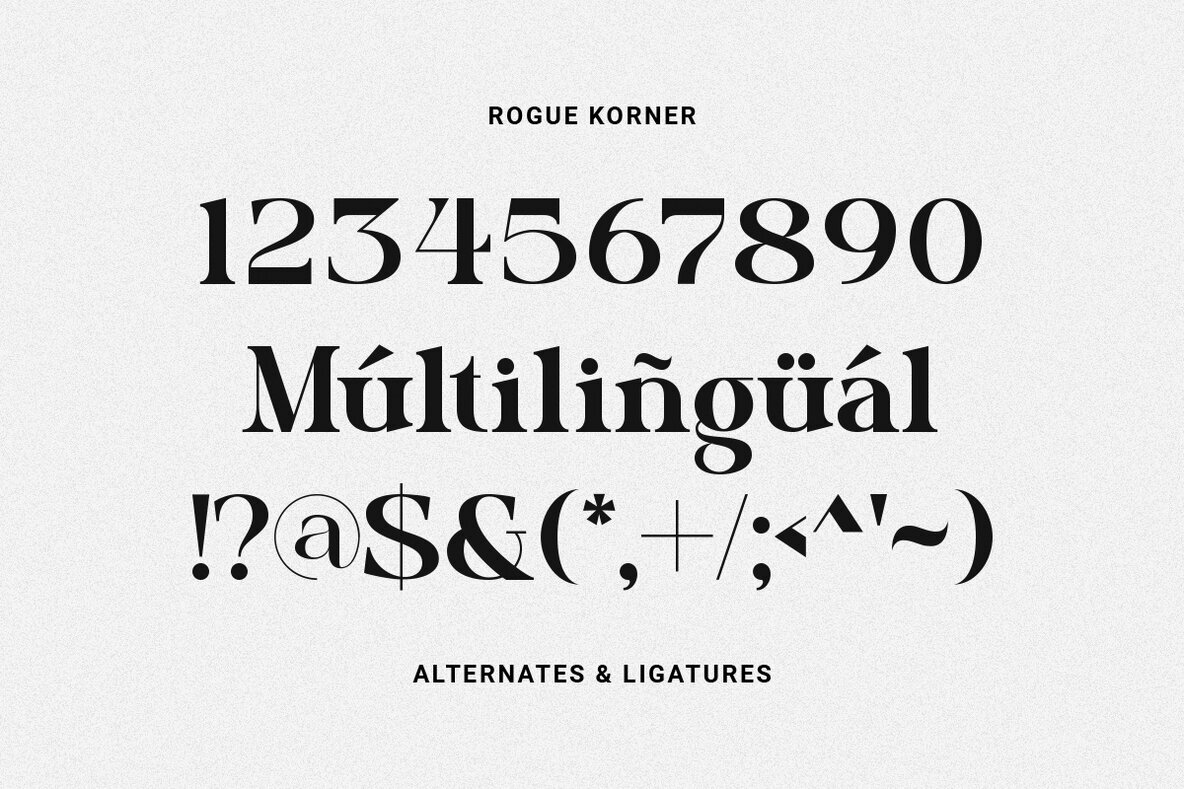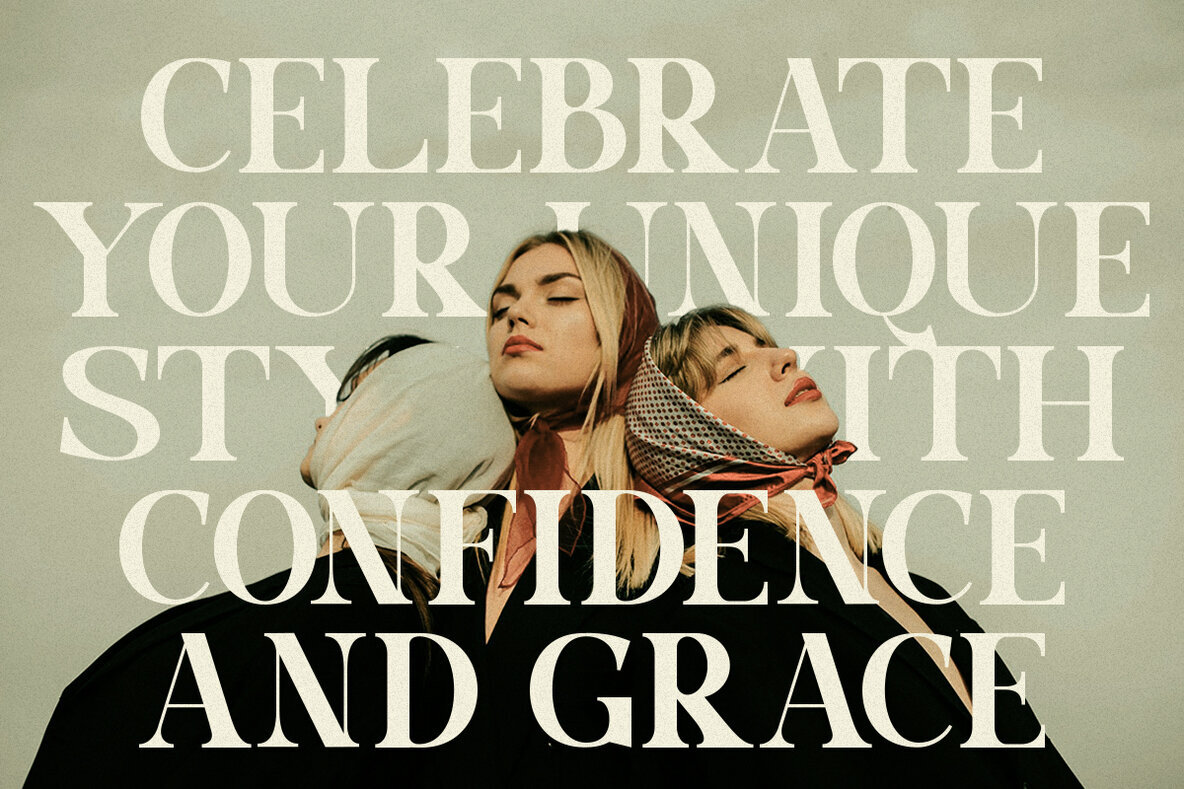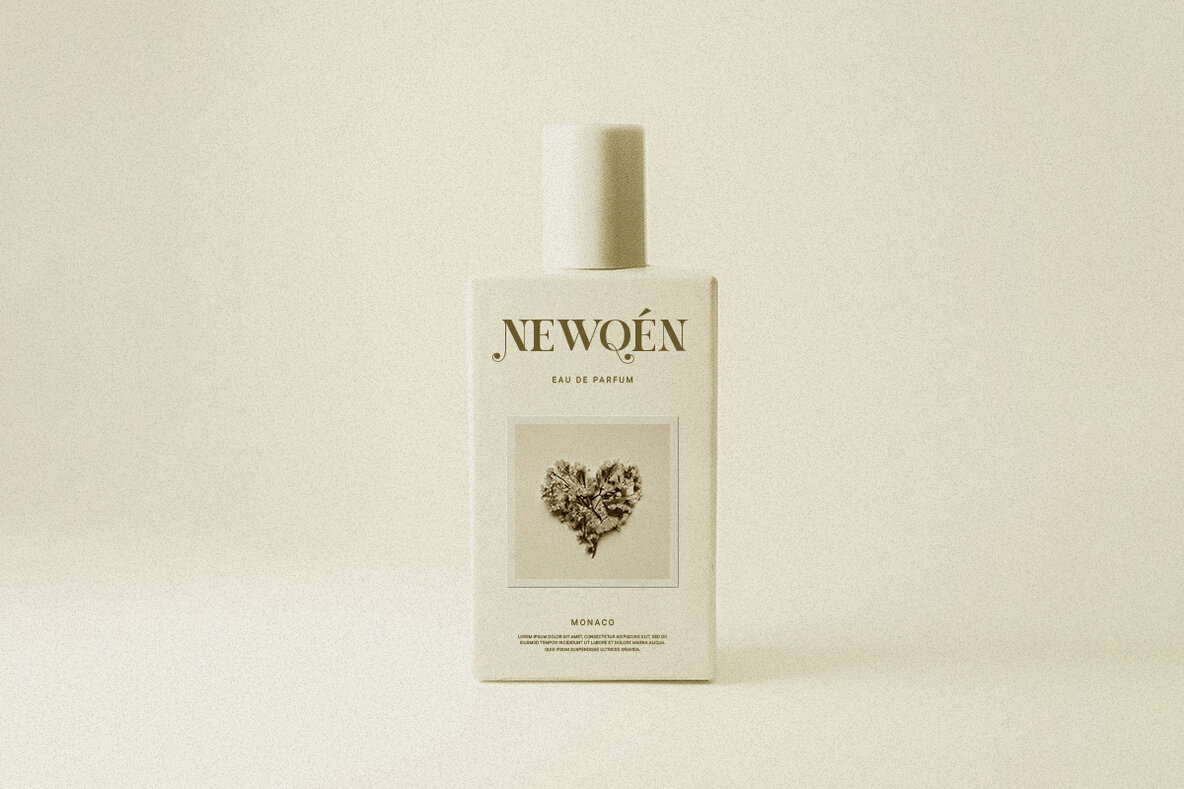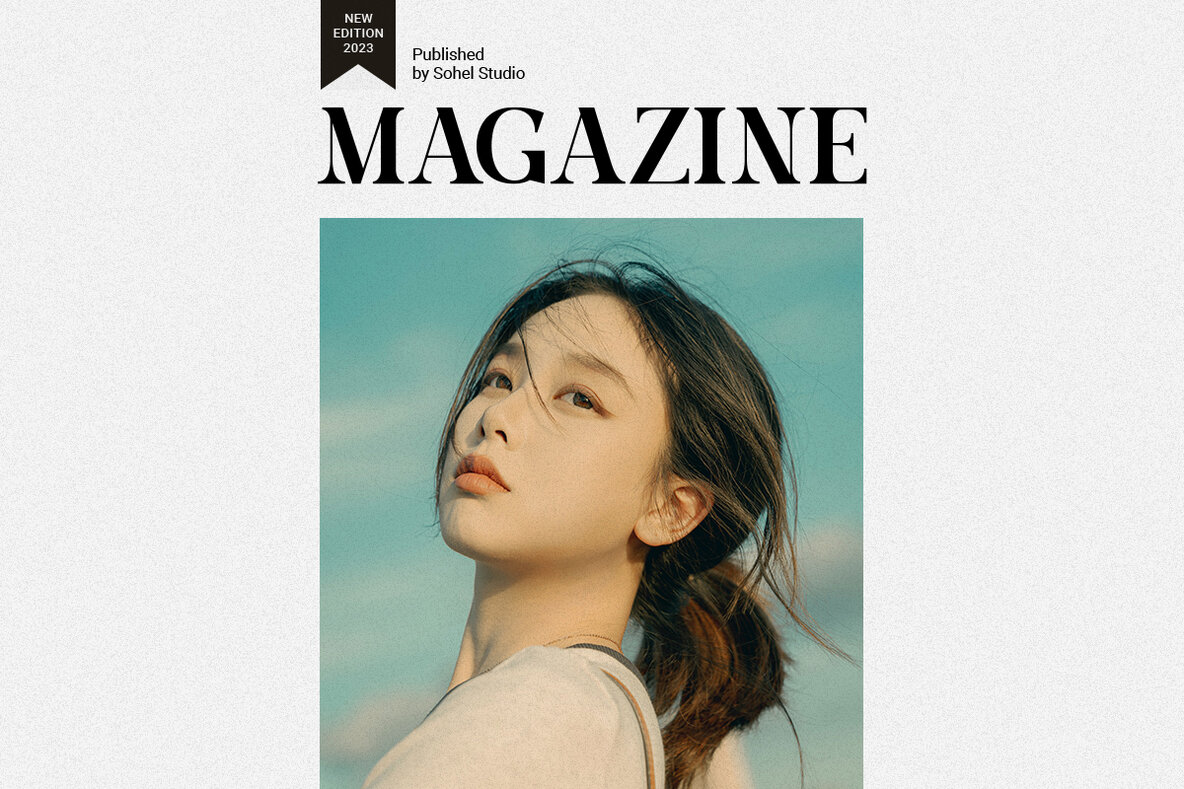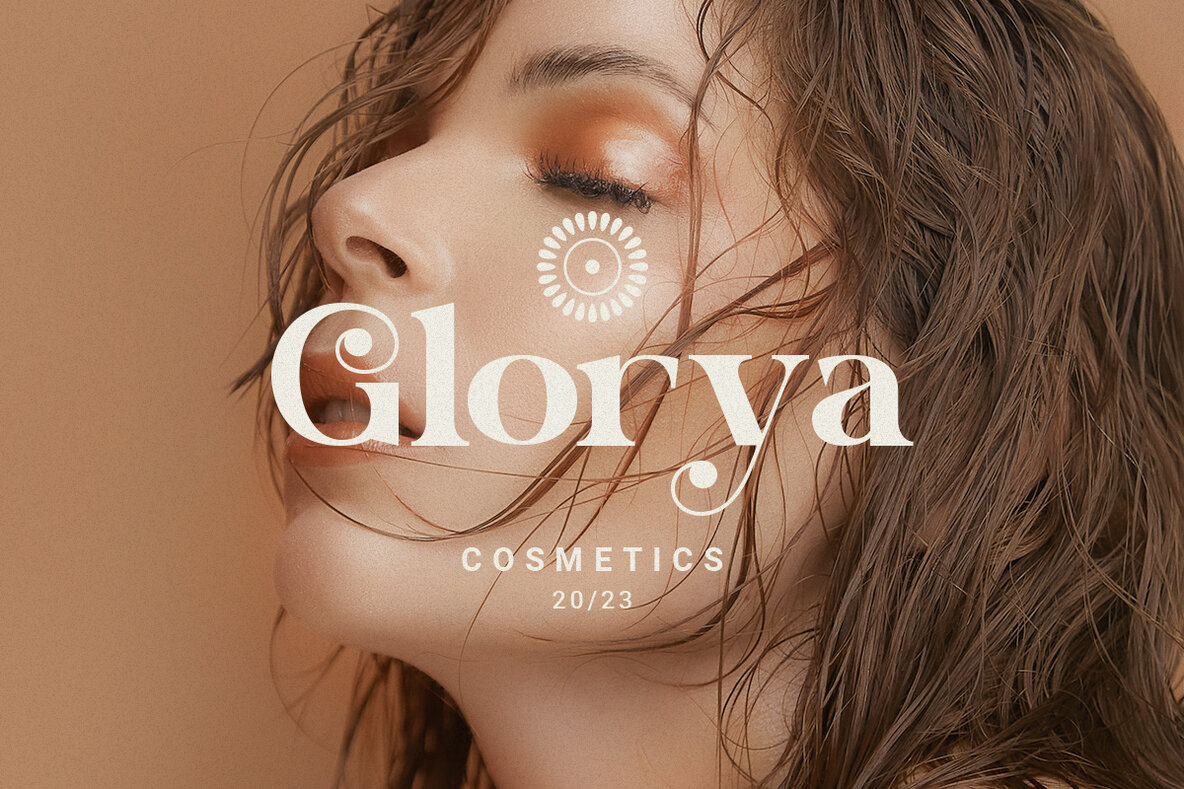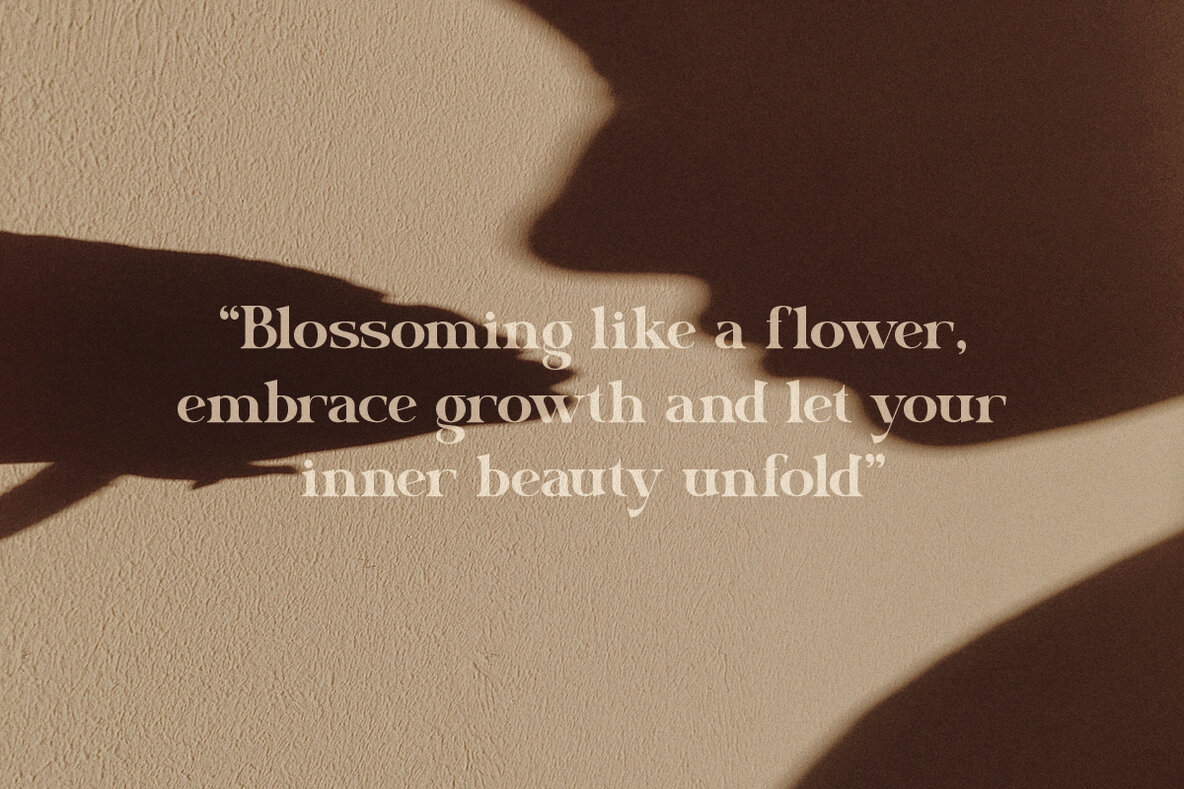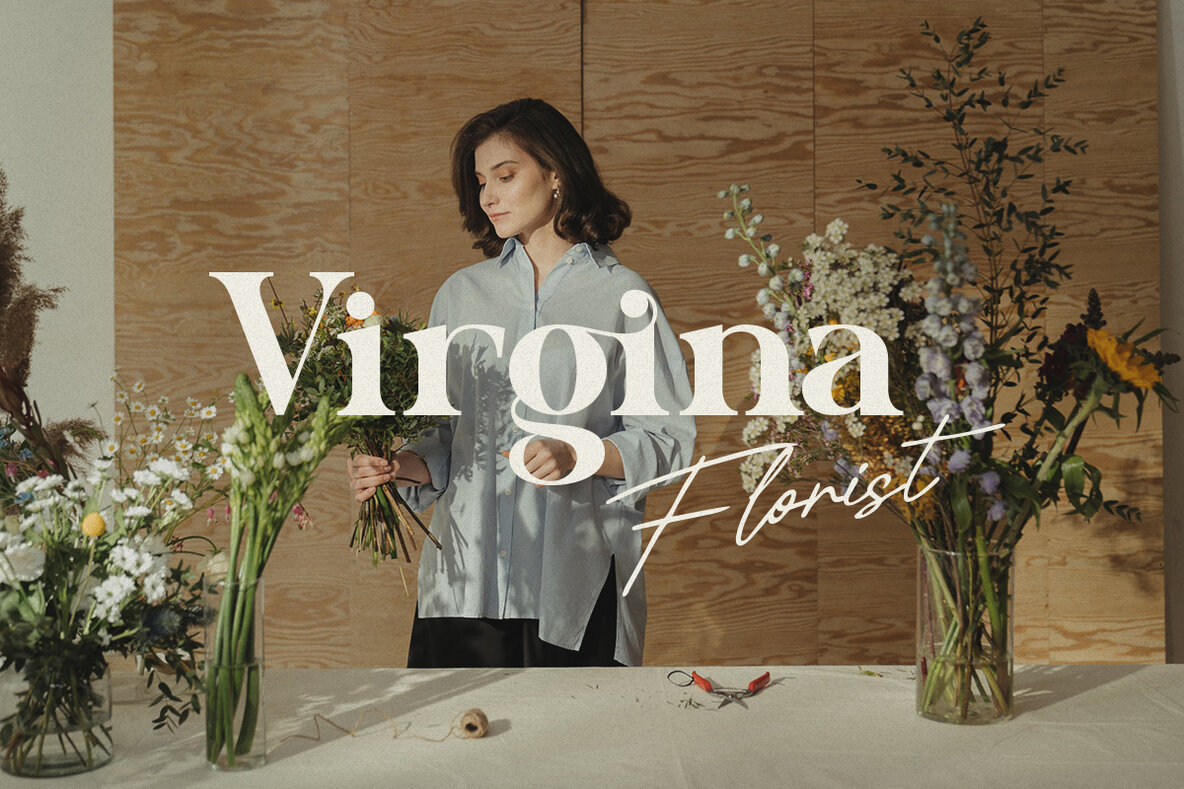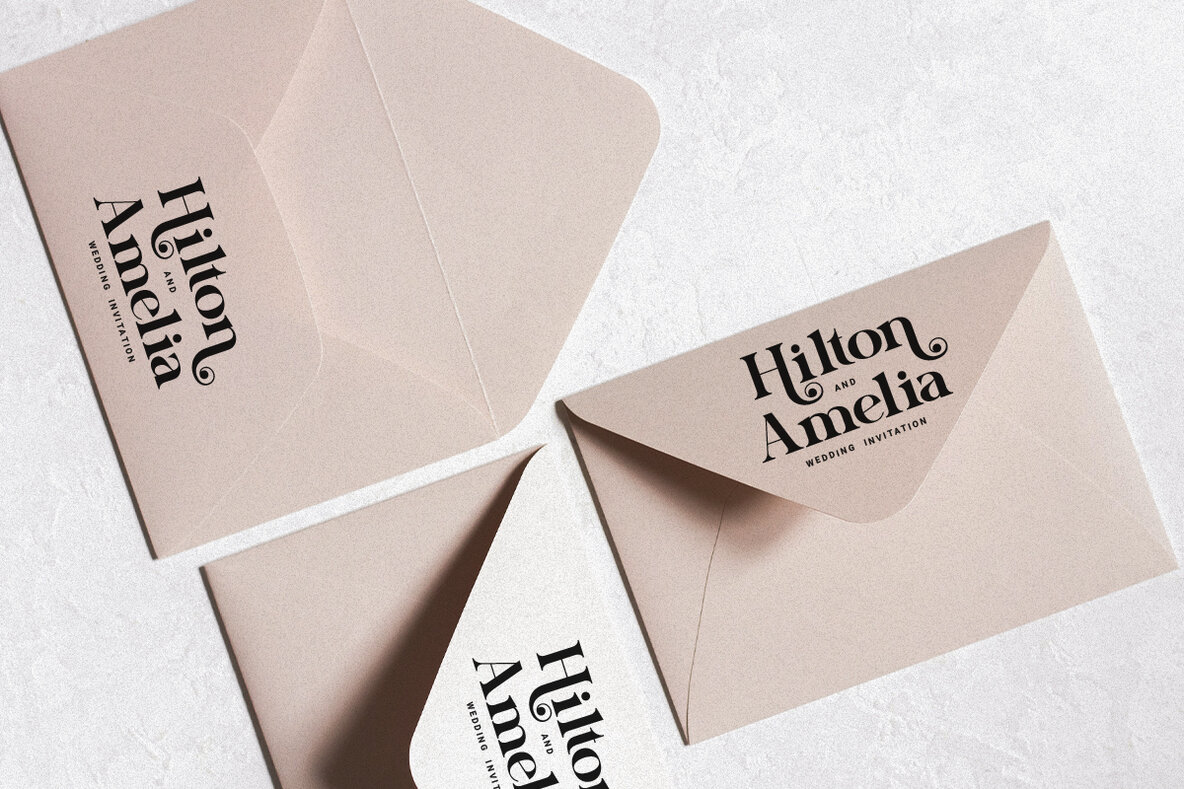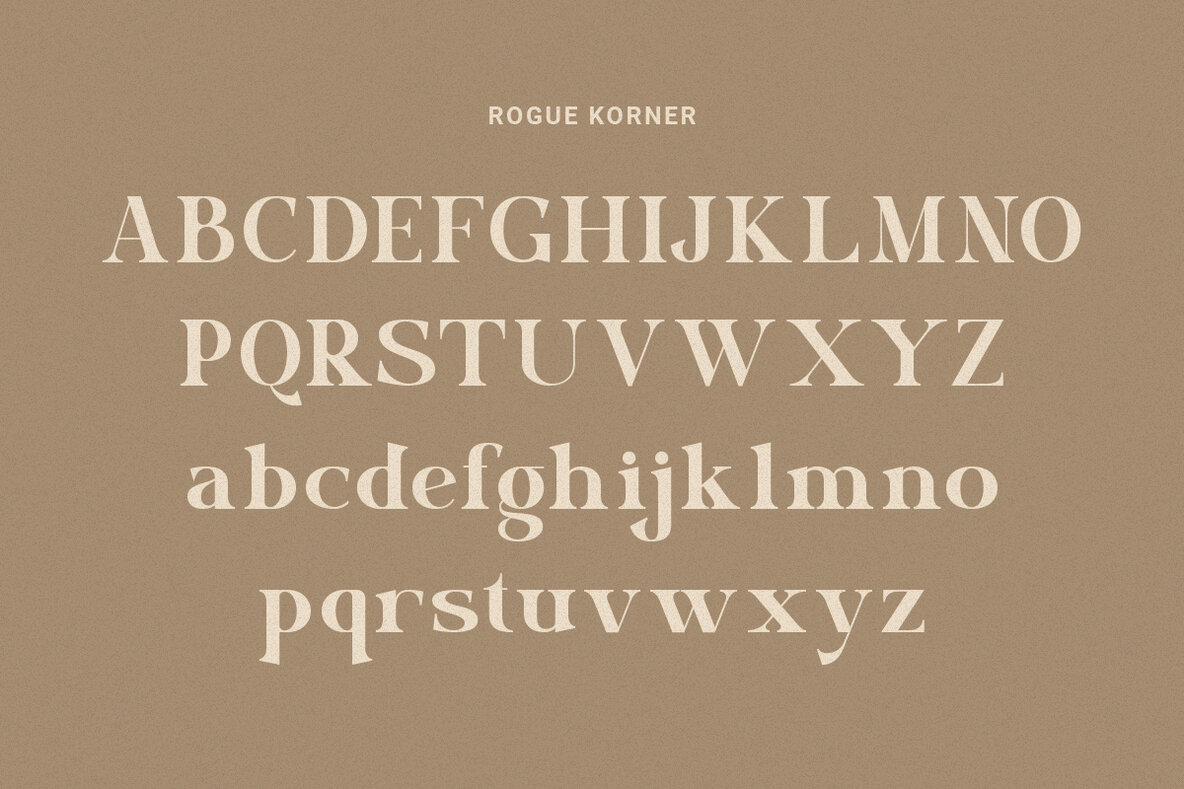
Rogue Korner Font
Rogue Korner is a retro display serif font that exudes classic charm and bold character. Inspired by retro styles, this font brings an elegant touch and evokes a sense of the past. Each letter is meticulously crafted with careful attention to detail and proportion, resulting in a visually appealing and unique appearance. Rogue Korner is perfect for projects that require a vintage feel, such as posters, logos, packaging, and promotional materials that aim to capture a nostalgic and sophisticated atmosphere. This font will add a special touch to your designs and captivate viewers with its retro allure and distinctiveness. If you encounter any issues or have feedback, please don't hesitate to contact us. We value your input to further refine our products. Thank you and have a wonderful day.Rogue Korner: A Retro Charm with Bold Serif Style